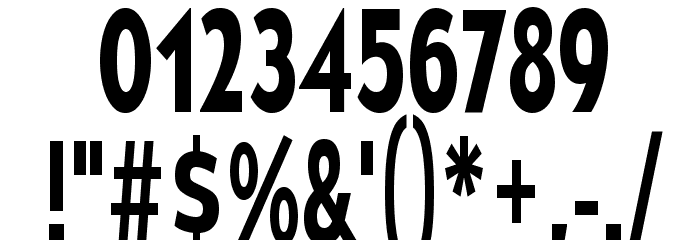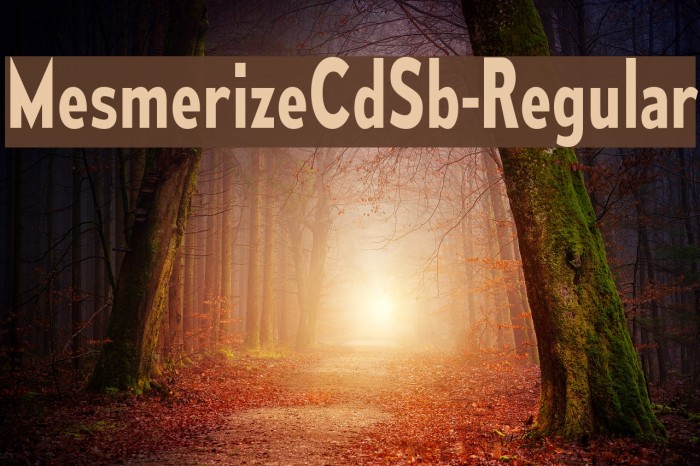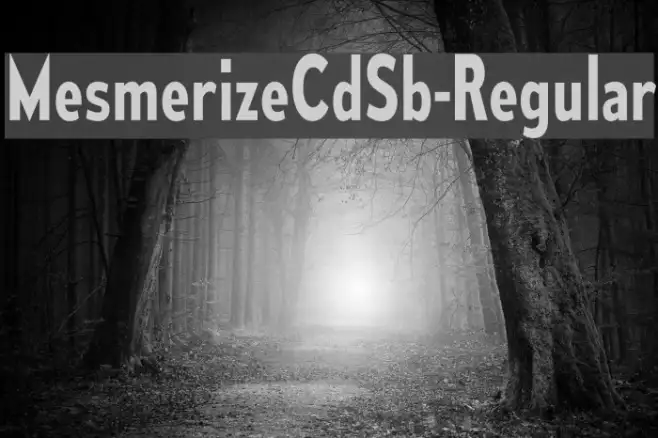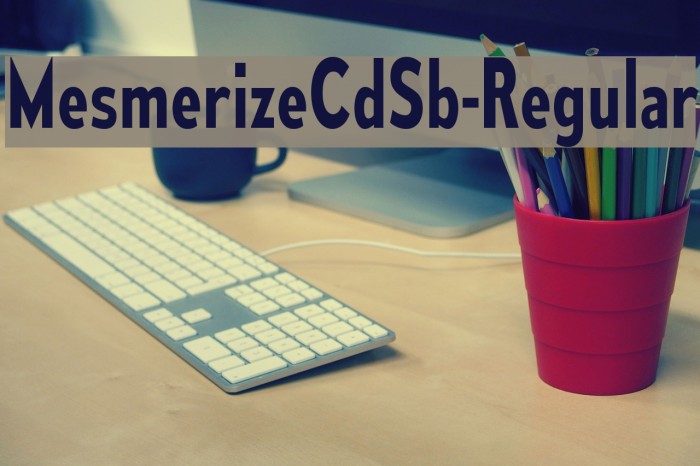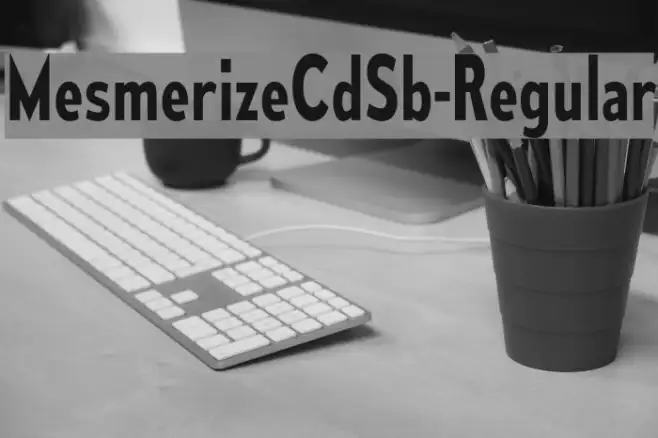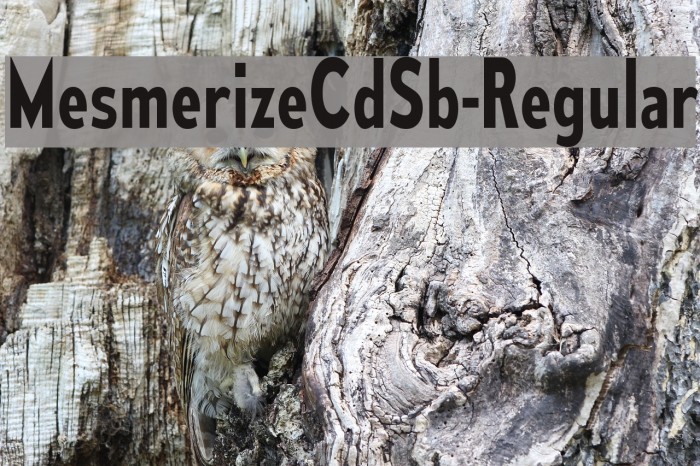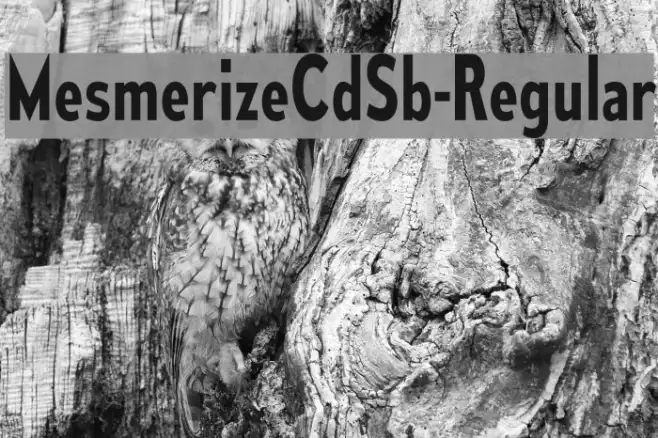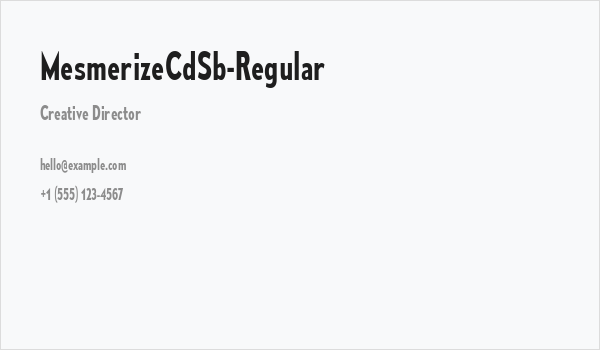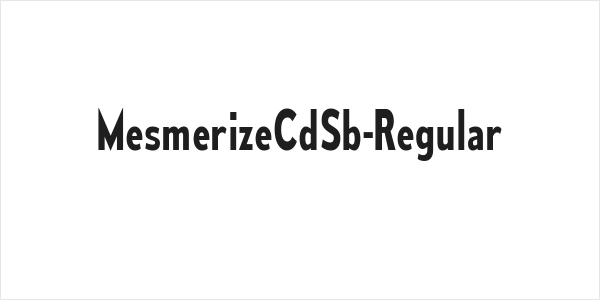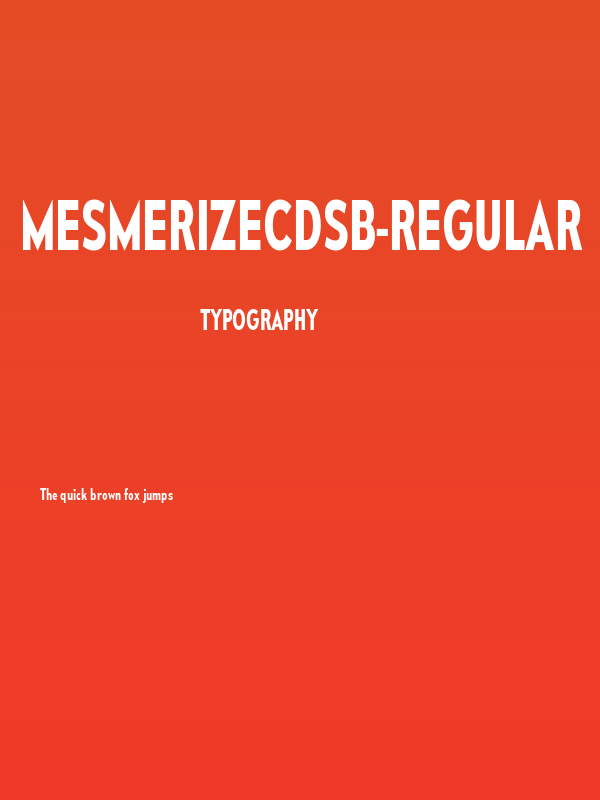
MesmerizeCdSb-Regular Font
MesmerizeCdSb-Regular Description
This font features bold, clean lines with a modern and impactful appearance. The uppercase letters are tall and commanding, while the lowercase letters maintain a consistent weight and structure, offering a harmonious balance. The numerals are robust and easily legible, making them suitable for various applications. The special characters are well-defined, maintaining the overall bold aesthetic. The font's design is straightforward yet powerful, making it versatile for numerous design projects.
| Proposed Projects | Ideal for headlines, posters, branding, and advertising materials where a strong visual impact is desired. |